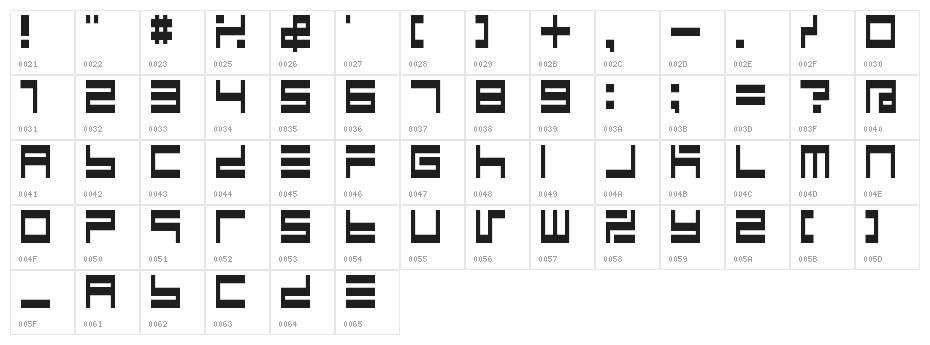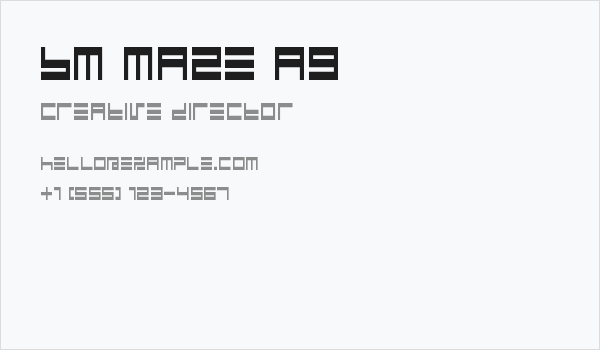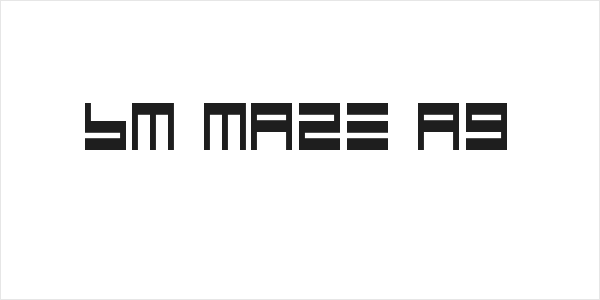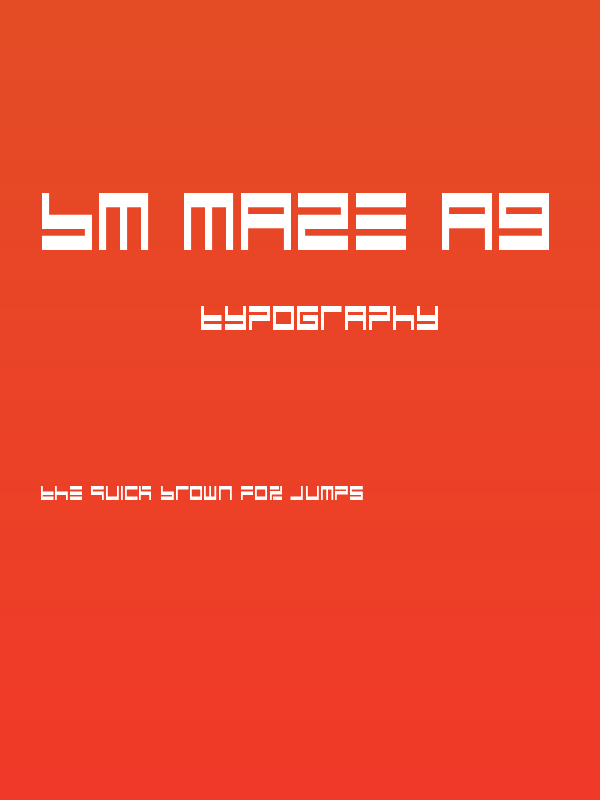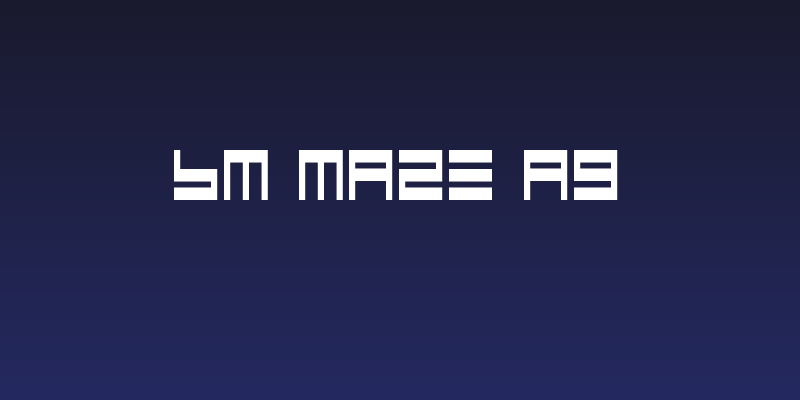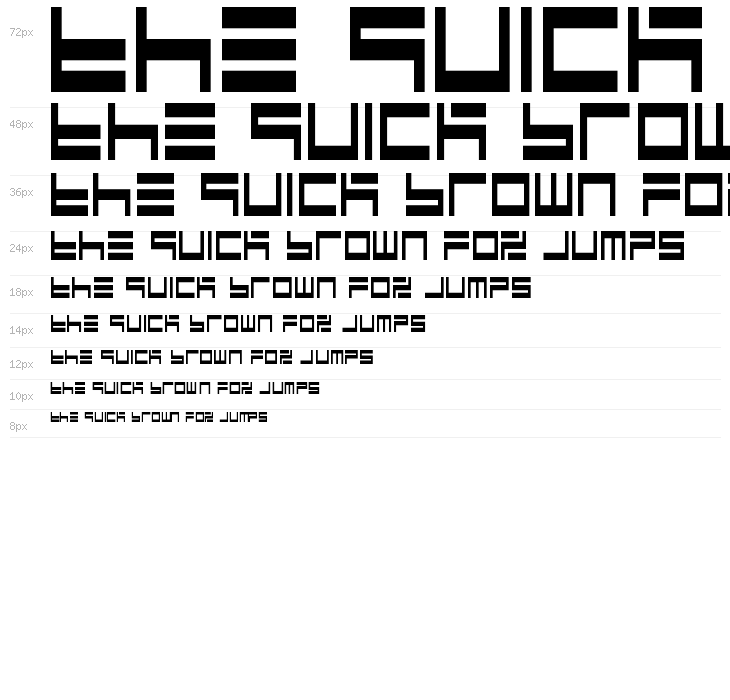
BM maze A9 Font
BM maze A9 Description
This font features a geometric and maze-like design, characterized by its bold, blocky appearance. Each character is constructed with straight lines and right angles, creating a structured and futuristic look. The uniformity in stroke width across all characters gives it a cohesive and modern aesthetic. The uppercase and lowercase letters share similar design elements, maintaining consistency throughout the typeface. Numbers and special characters are crafted with the same attention to geometric precision, making them easily recognizable and visually appealing. The overall style is reminiscent of digital or technological themes, making it suitable for projects that require a contemporary and edgy feel.
| Proposed Projects | Ideal for tech-related branding, video game titles, futuristic posters, and digital art projects. |